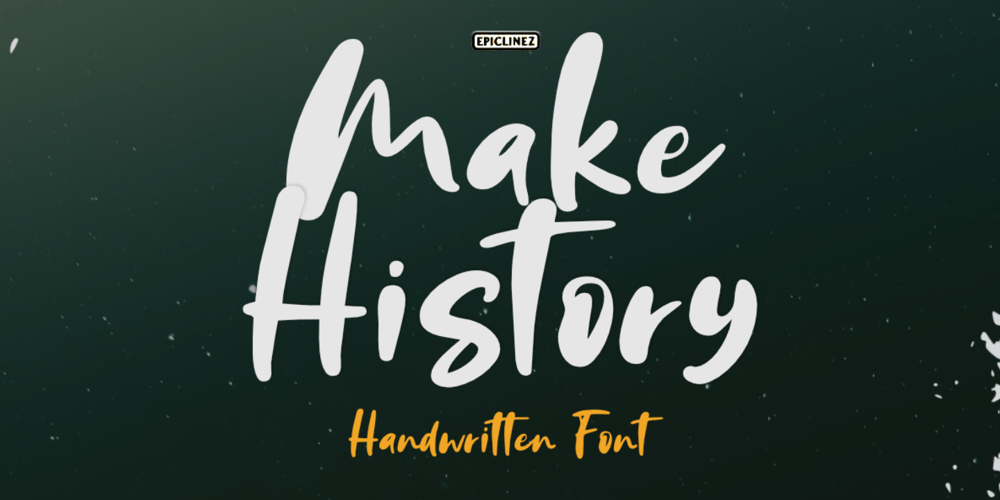
Make History Font Family was designed by Aldy Sidik and published by Epiclinez. Make History contains 1 styles and family package options. Make History is a bold and playful handwritten script font. It is suitable for logos, branding, apparel, social media, and much more.